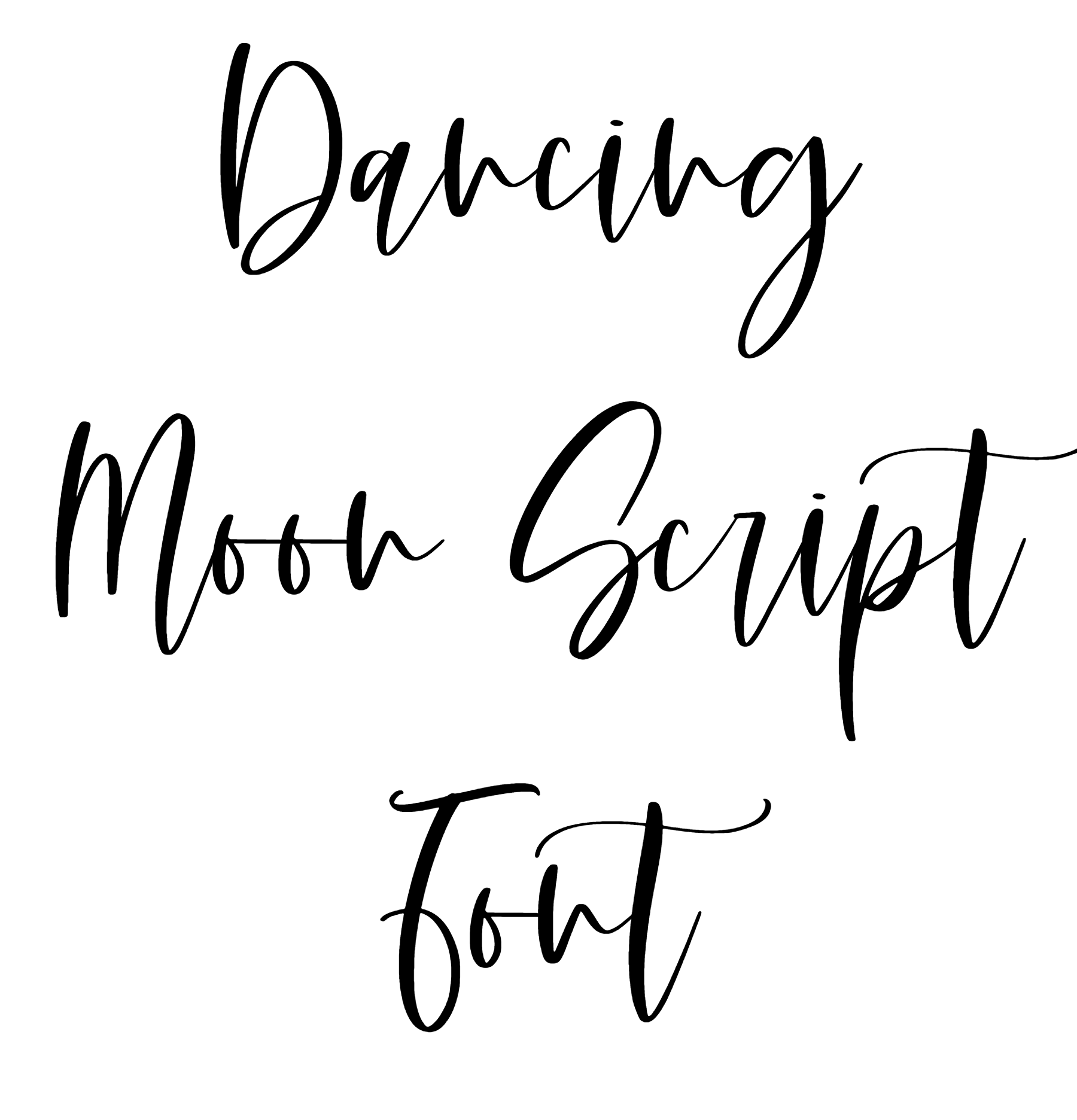
Dancing Moon Script is an elegant, balanced handwritten calligraphy font developed by Abo Daniel Studio. It features fluid, connected strokes that provide a refined and rhythmic hand-lettered feel, making it highly suitable for greeting cards, invitations, typography artwork, and custom branding.
Dancing Moon Script
Dancing Moon Script is a calligraphy font created by Abo Daniel (2019). The letters have the smooth movement of real pen lettering, which is why even a single name looks special in it. It's a free download, and you can try it with your own text in the preview above first.
- Designer: Abo Daniel
- Extra characters: 16 copy-and-paste alternates (Private Use Area)
What You Can Type With Dancing Moon Script
With complete upper and lowercase letters and all ten digits, Dancing Moon Script is ready for real wording, not just a single headline. Everyday marks like &, !, ? and @ are there too. There are no accented letters like é or ñ, so it's best kept to English text.
Where Dancing Moon Script Works Best
Dancing Moon Script is a natural fit for wedding invitations, certificates and elegant quotes. Its lowercase letters are small compared to the capitals, so set it a size or two bigger than usual. Script fonts read best in short bursts, so keep it to names, titles and one-line quotes. Skip all caps: script capitals are drawn to start a word, not to fill one.
Who designed Dancing Moon Script font?
Does Dancing Moon Script support accented letters?
No. Dancing Moon Script has no accented letters such as é, ñ or ü, so it's best for English text.